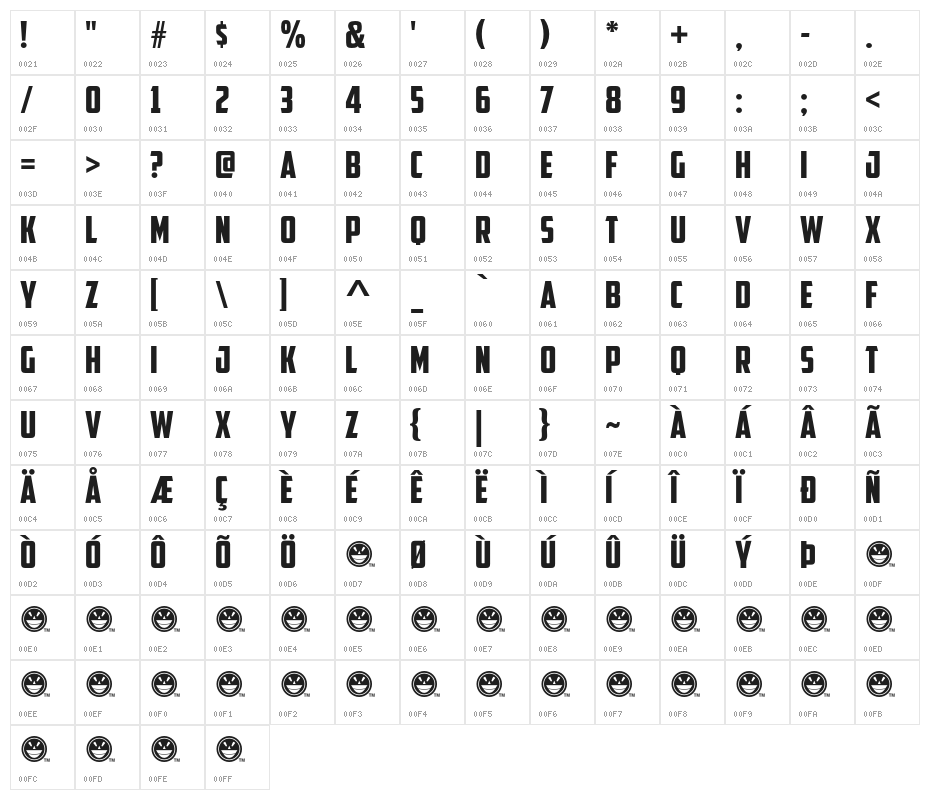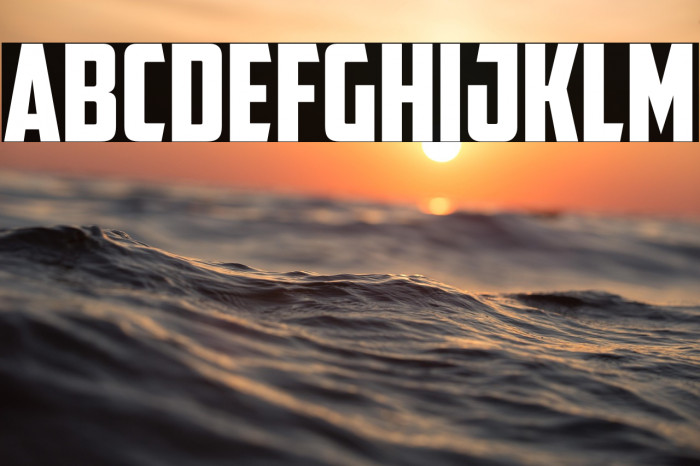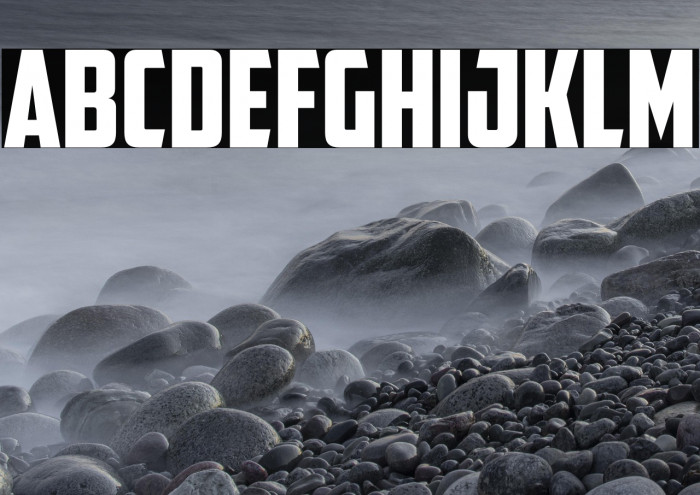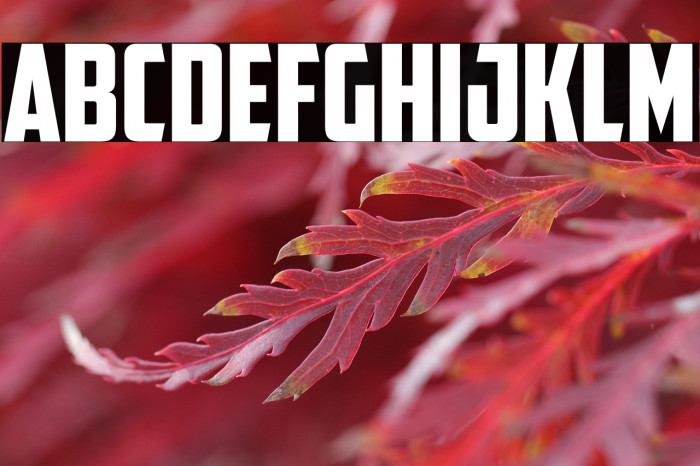
American Captain Font
American Captain Description
This font features bold, blocky letters with a strong, commanding presence. The uppercase characters are uniform in height and width, creating a cohesive and powerful look. The numbers and special characters maintain the same bold style, ensuring consistency across all text elements. The design is reminiscent of vintage military or athletic lettering, with a modern twist that makes it suitable for a variety of applications. Its boldness and clarity make it ideal for attention-grabbing headlines or impactful logos.
| Proposed Projects | Ideal for sports team branding, military-themed designs, posters, and bold headlines. |